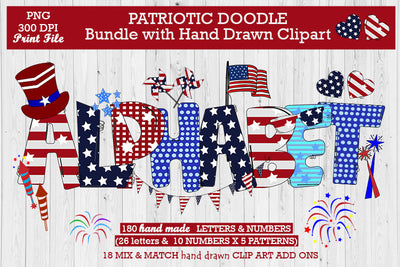
Patriotic Doodle Bundle with Hand Drawn Clipart
Patriotic Doodle Bundle with Hand Drawn Clipart, featuring our hand-drawn doodle letters and numbers in four different patterns (26 letters and 10 numbers in each pattern). Also included are 9 hand-drawn doodle clip art add-ons, so you can mix and match to create unique and custom letters and words! Easily resize, flip, move, etc in your favorite design program. Visit our shop for more themes to mix and match! Perfect for everything from t-shirts and sweatshirts, to home decor!